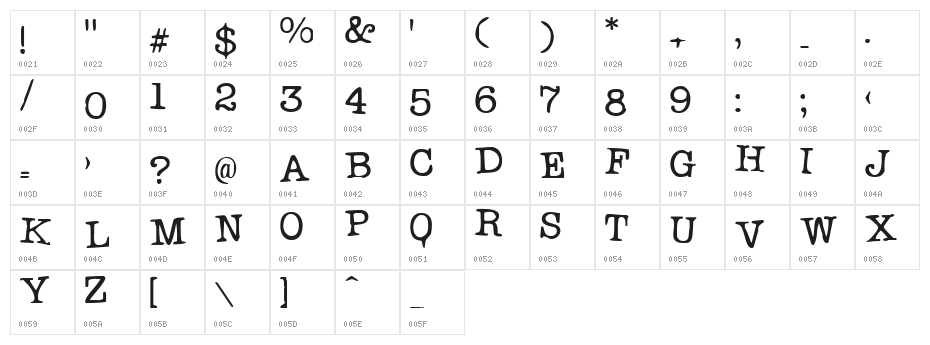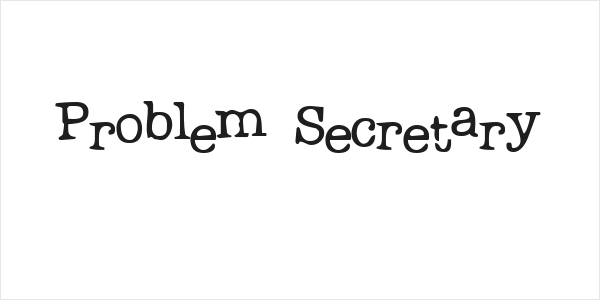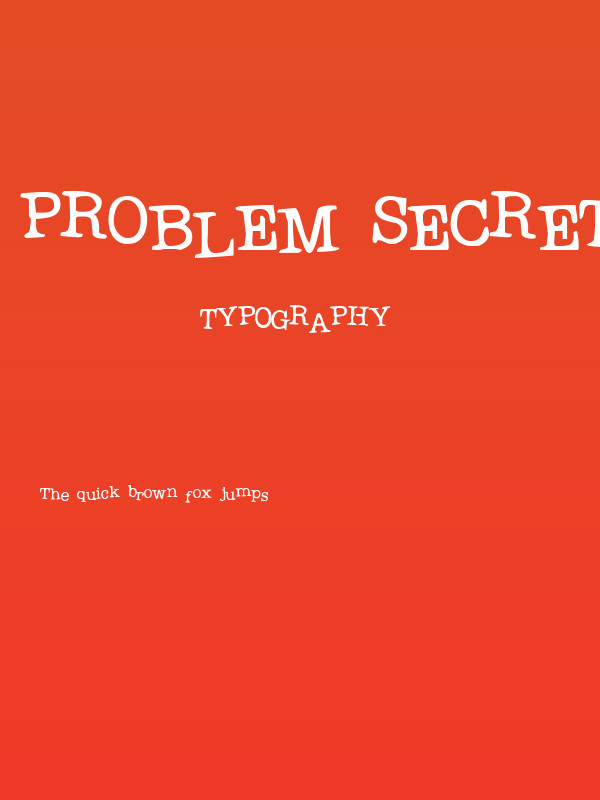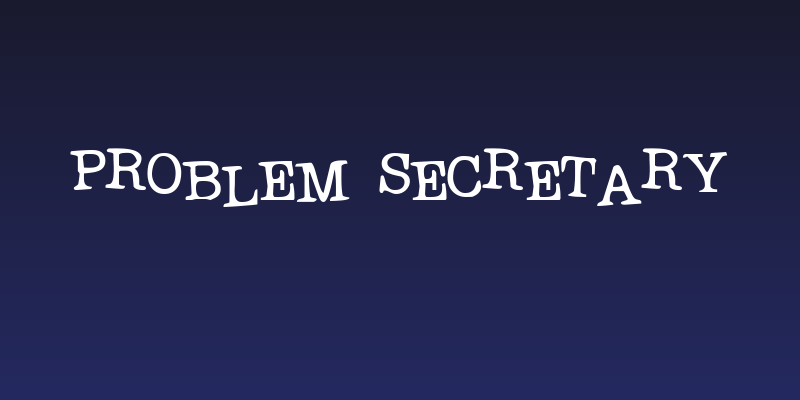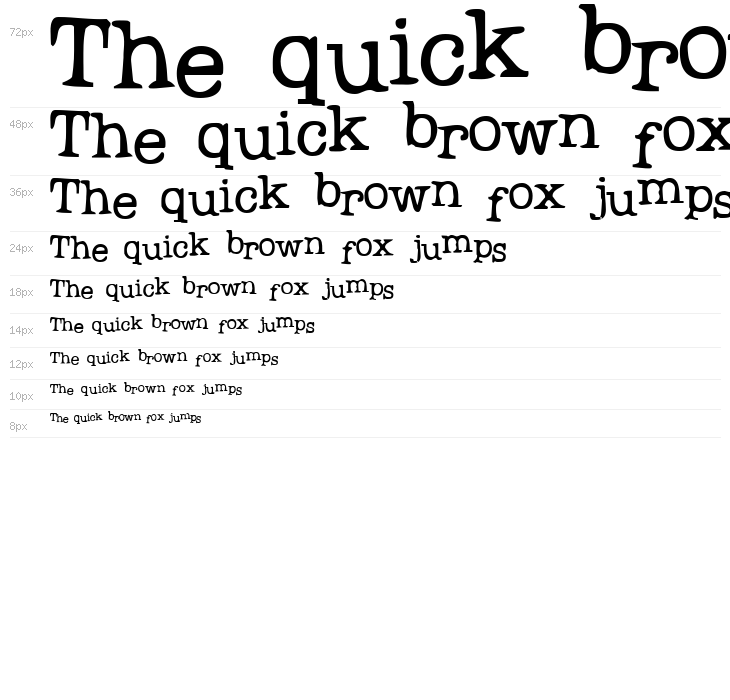
Problem Secretary Font
Problem Secretary Description
This font features a playful and quirky design with a handwritten feel. The characters have a slightly uneven baseline, adding to its whimsical charm. The strokes are bold and rounded, giving it a friendly and approachable appearance. The uppercase letters are slightly larger than the lowercase, maintaining a consistent style throughout. Numbers and special characters follow the same playful design, making this font versatile for various creative projects. Its unique style makes it stand out, perfect for designs that require a touch of personality and fun.
| Proposed Projects | Ideal for children's books, greeting cards, playful branding, and creative posters. |